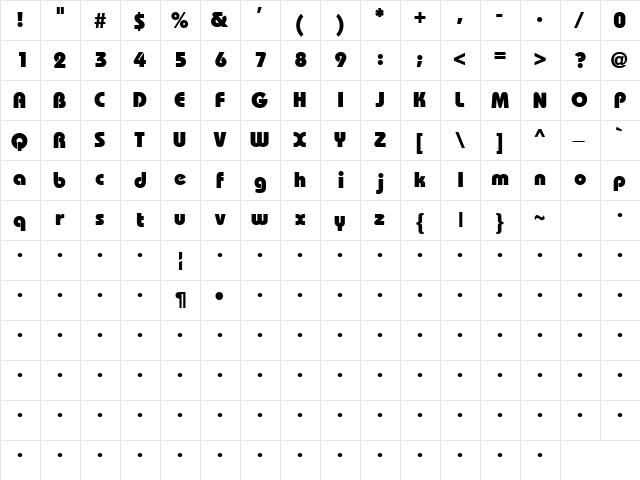
QTDoghausHeavy Regular
Design Context for QTDoghausHeavy Typeface
QTDoghausHeavy offers clean, dependable letterforms without strong stylistic allegiance, making it a practical choice for designers who need flexibility.